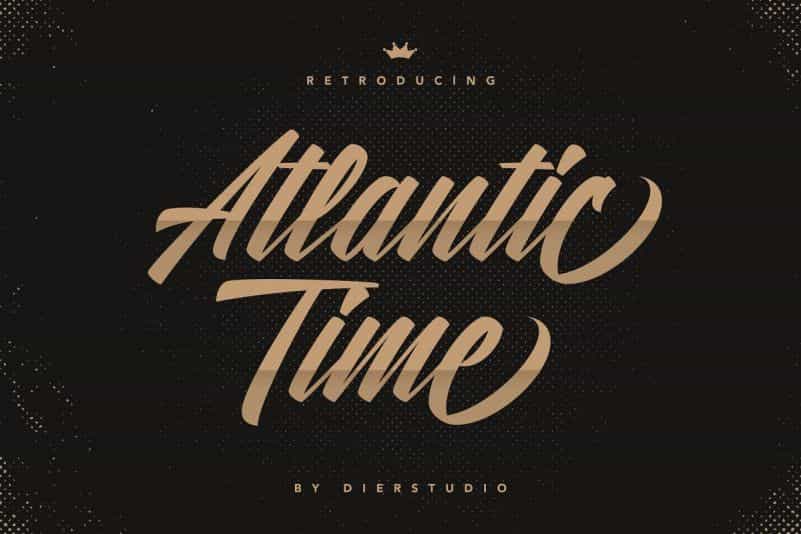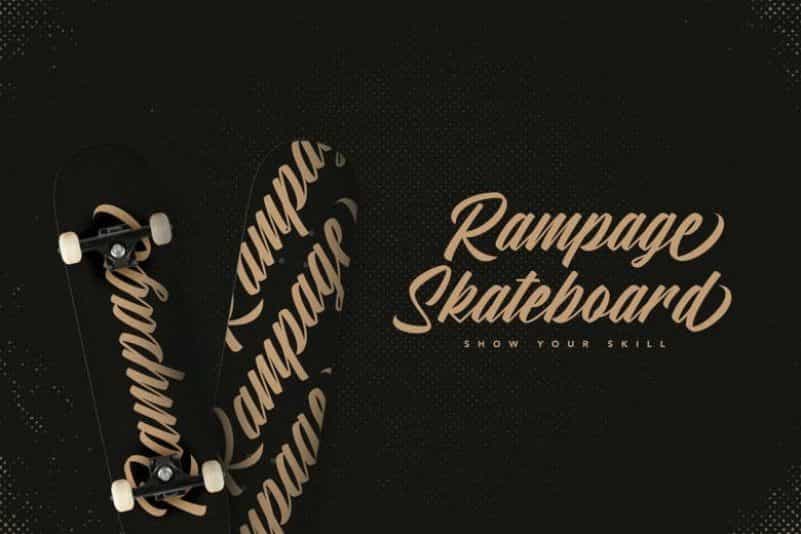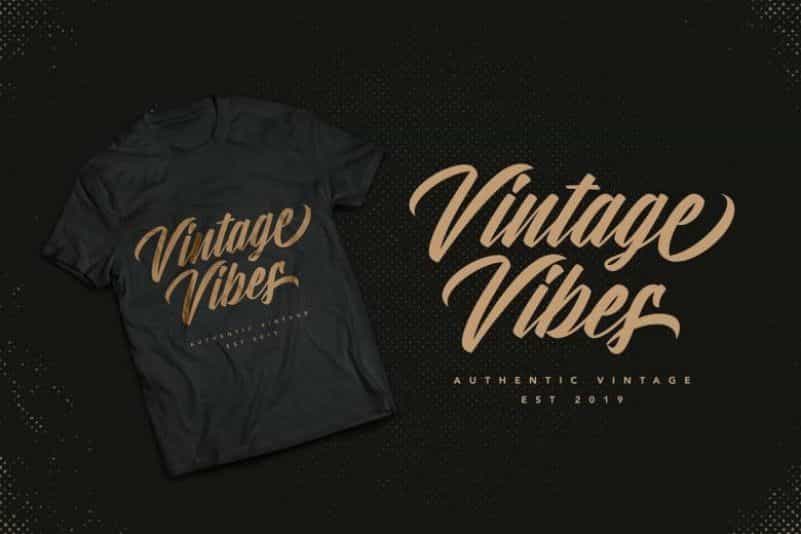
Discover Atlantic Time Script Font, part of the Calligraphy collection—a versatile and unique font perfect for adding a personal touch to your projects. Download it for free and enjoy crafting designs with style, from invitations to social media posts. This font is available exclusively for personal use, giving you the freedom to create without limits. Unlock your creativity with Atlantic Time Script Font today!
Atlantic Time! is a Script font with a strong and vintage touch. It’s a which gives a strong and vintage touch to your projects. with 6 sets of styles that will this font more Interesting. Atlantictime Script is to use for any kind of design such as branding projects, logos, social media posts, advertisements, product packaging, product designs, labels, poster, photography, t-shirt, watermark and any projects.